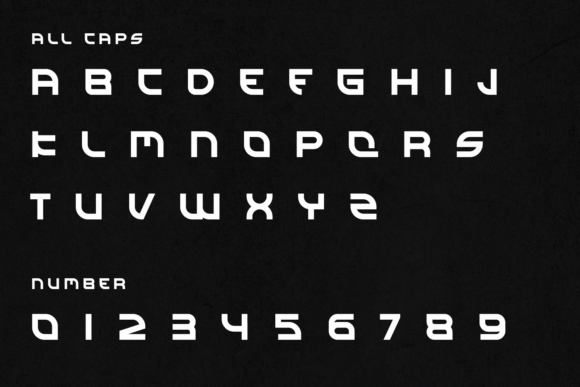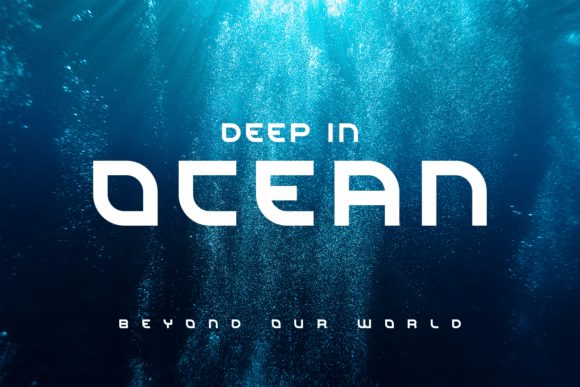
So, what makes Buffco Font so special? Here are a few things I love:
- ✨ Unique and trendy design that’s perfect for making a statement
- ✅ Highly versatile and works well for a variety of projects, from branding to advertising
- 🔥 Excellent for headlines, titles, and short paragraphs of text
- 👍 Easy to read, even at smaller font sizes
Of course, no font is perfect, and Buffco Font has a few quirks:
- 🤔 May not be the best choice for body text or long paragraphs, as it can be a bit too bold
- ⚠️ Some users may find the font a bit too condensed, which can make it harder to read
- Experiment with OpenType features, such as glyphs and stylistic alternates, to add some extra flair to your design
- Take advantage of OpenType features, such as ligatures and stylistic sets, to add some extra personality to your design
The Story Behind Buffco Font
Buffco Font was designed with the modern designer in mind. Its creator, a talented typographer, wanted to create a font that was both trendy and timeless. Inspired by the latest design trends, Buffco Font is the perfect blend of style and functionality.
| What type of projects is Buffco Font best suited for? | Buffco Font is perfect for projects that require a trendy and stylish font, such as branding, advertising, and packaging. |
| Can I use Buffco Font for body text? | While Buffco Font can be used for body text, it’s recommended to use it for headlines, titles, and short paragraphs of text for maximum impact. |
| Is Buffco Font easy to read? | Yes, Buffco Font is designed to be easy to read, even at smaller font sizes. |